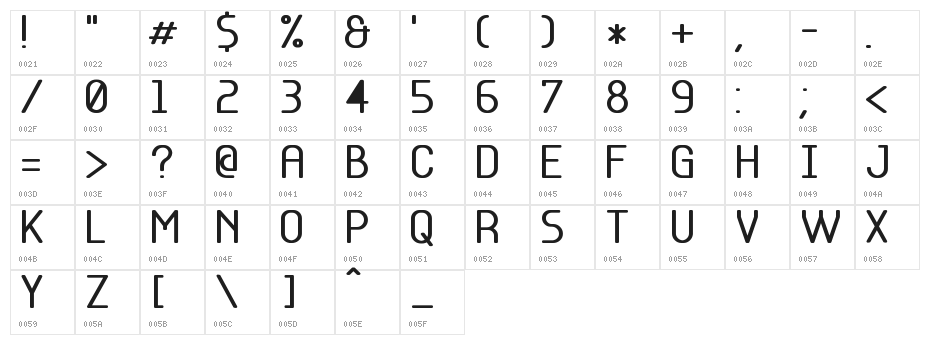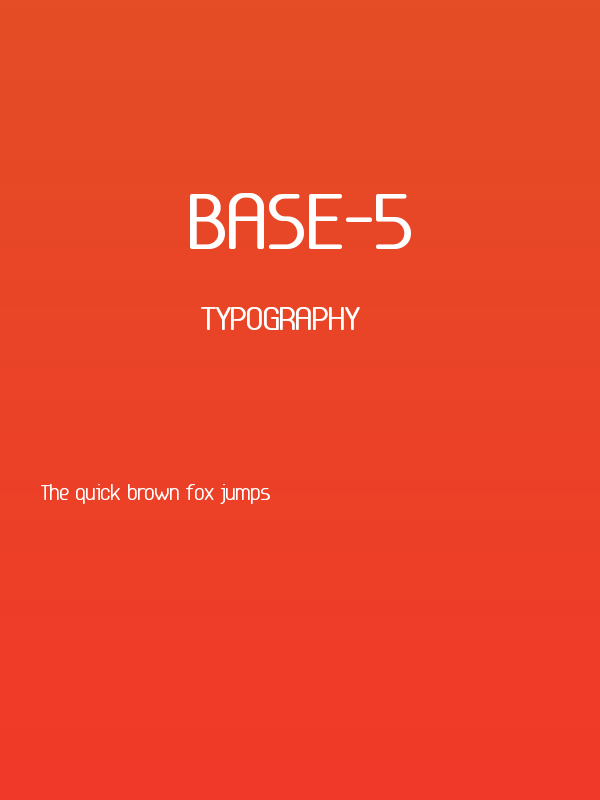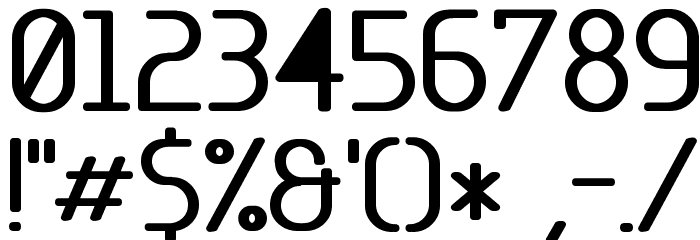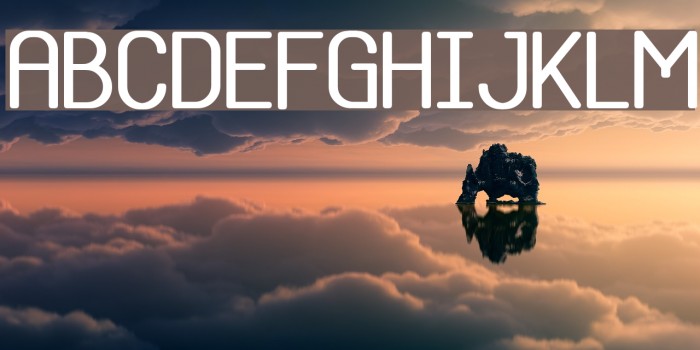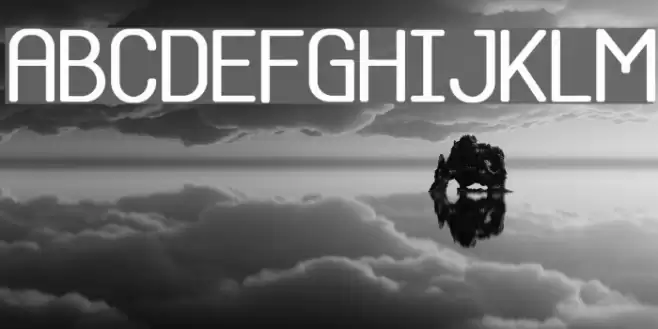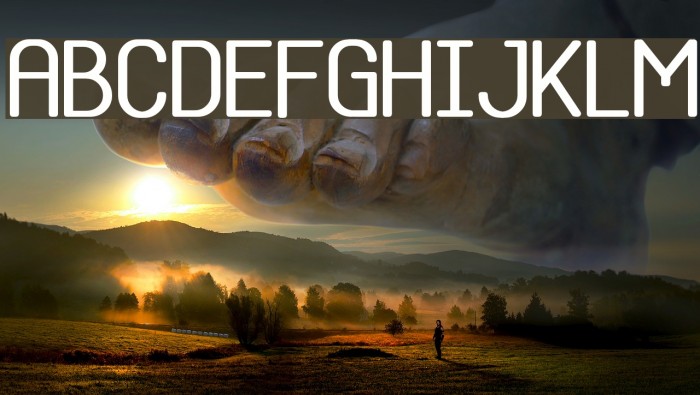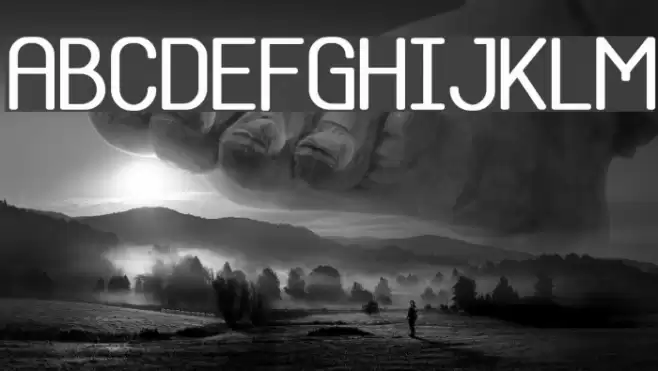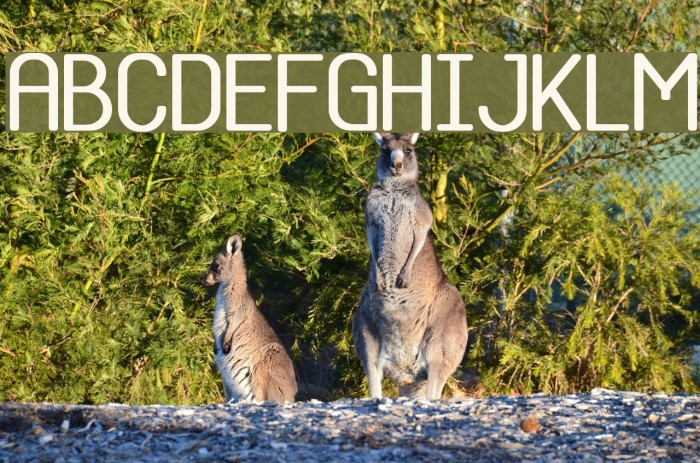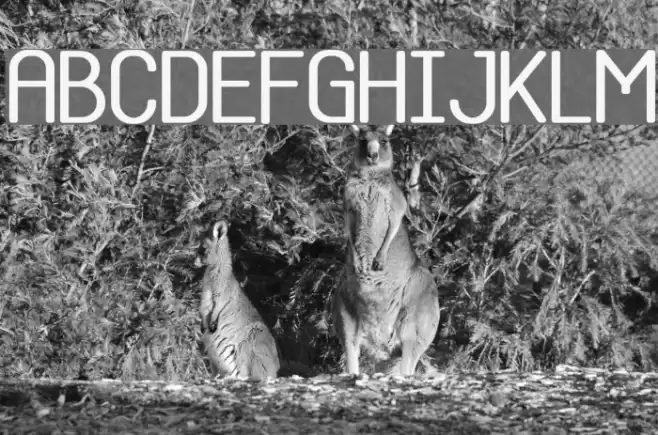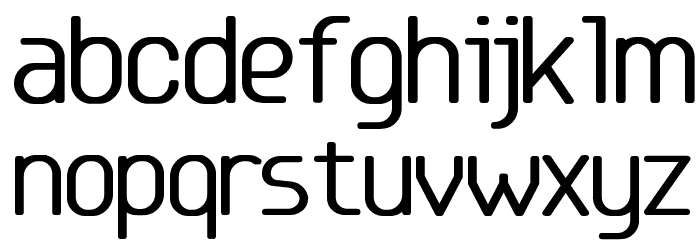
Base-5 Font
Base-5 Description
This font features a clean and modern design with rounded edges and a geometric structure. The uppercase letters are uniform in height, while the lowercase letters maintain a consistent baseline, offering a harmonious appearance. The numerals are distinct and easily readable, with a slightly futuristic touch. Special characters are well-integrated, maintaining the overall aesthetic. The font's simplicity and clarity make it versatile for various applications.
| Use Case | Headlines, Body text, Logos |
| Proposed Projects | Ideal for tech branding, modern web design, and user interfaces. |